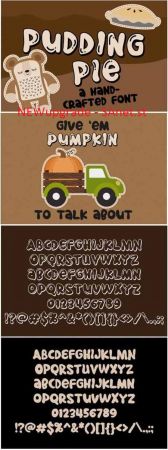
DesignOptimal - Pudding Pie Duo Font
Pudding Pie Duo is a whimsical hand-crafted font duo that is great for many design projects. Fall in love with its playful look & feel!